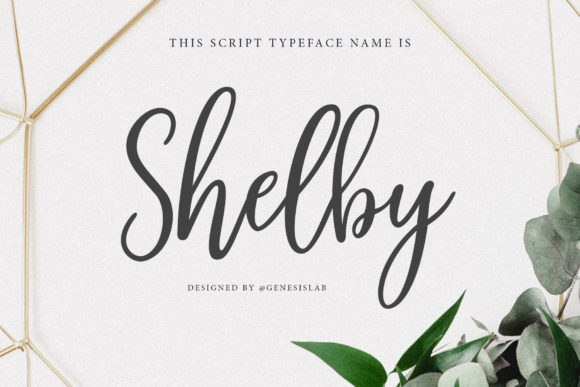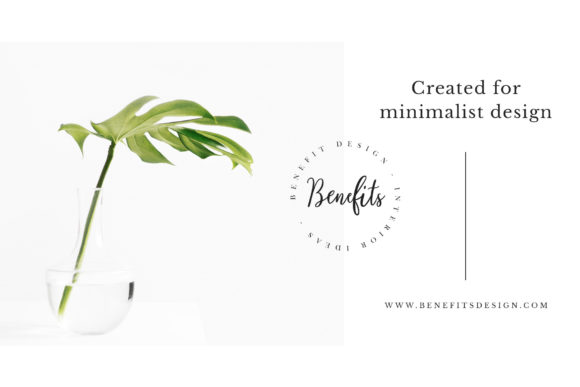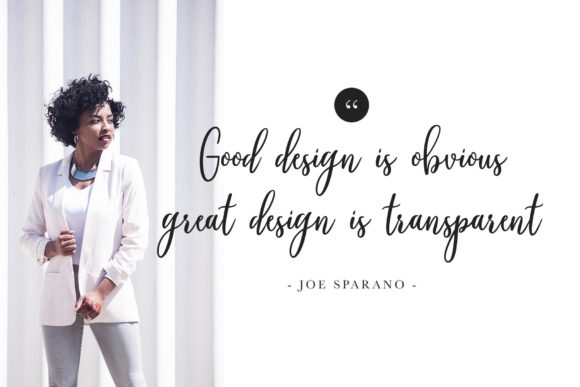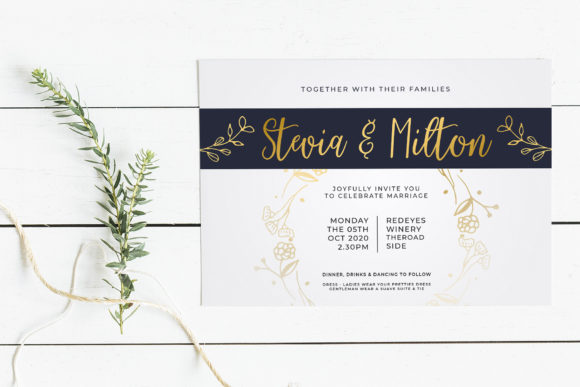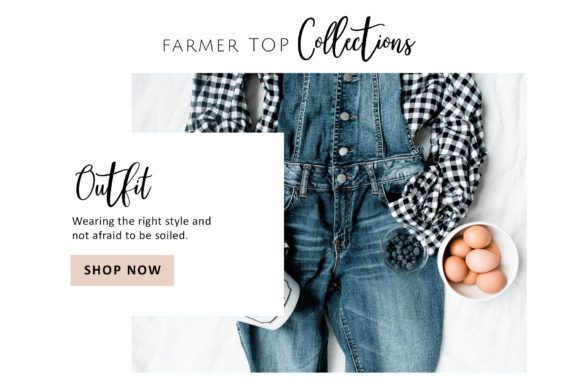
About Shelby Script Font
Shelby is a simple and interesting script font that perfectly combines classic letters with modern calligraphy. This font is suitable for many creative projects, including titles, signatures, logos, wedding invitations, t-shirts, letterheads, nameplates, labels, bulletins, posters, badges, etc.